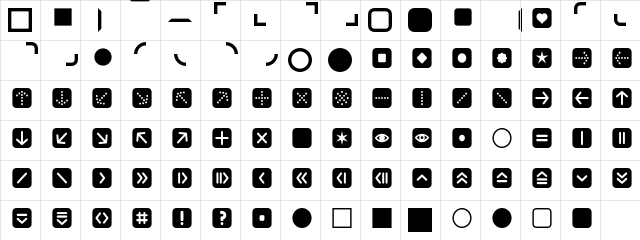
ButtonBonus RoundedNegative
Design Context for ButtonBonus Typeface
ButtonBonus uses gentle rounded endings to create a warm, inviting typographic personality — less corporate than geometric sans, more refined than playful display fonts.
A natural fit for tech startups, health and wellness brands, children's products, and friendly consumer apps.
Font Pairing: Pairs well with a rounded or humanist sans for body copy, maintaining the friendly tone without relying on ButtonBonus to carry extended reading.
Pro Tip: Pair ButtonBonus with a geometric sans for a balanced system — the rounded softness works as a warm counterpoint to harder-edged companions.